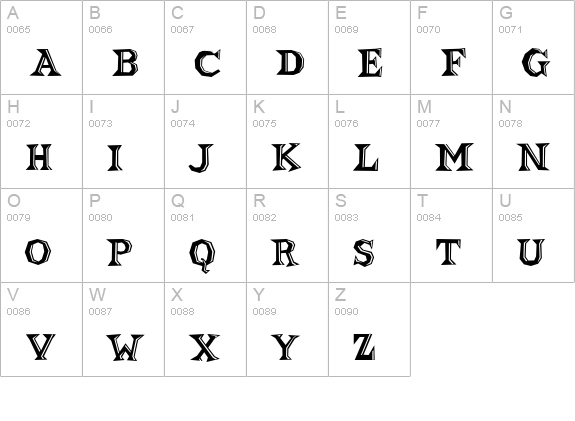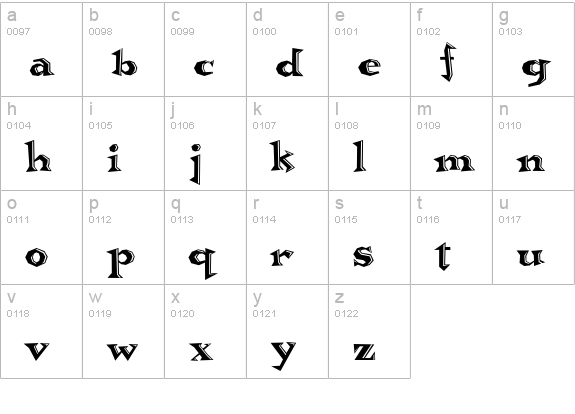
Brainhead Font Details
Introducing Brainhead font, a versatile and unique typeface that combines modern design with a touch of creativity. This font is perfect for a wide range of projects, from branding and advertising to social media graphics and website design. With its bold and eye-catching style, Brainhead font is sure to make your text stand out and leave a lasting impression on your audience. What sets Brainhead font apart is its playful yet sophisticated look, making it a great choice for projects that require a balance of professionalism and personality. Whether you're designing a logo, creating a poster, or crafting a social media post, this font will help you achieve a polished and professional look. The best part? Brainhead font is completely free to download at FontsMarket.com. So why wait? Bring your designs to life with this stunning font today and see the difference it can make!